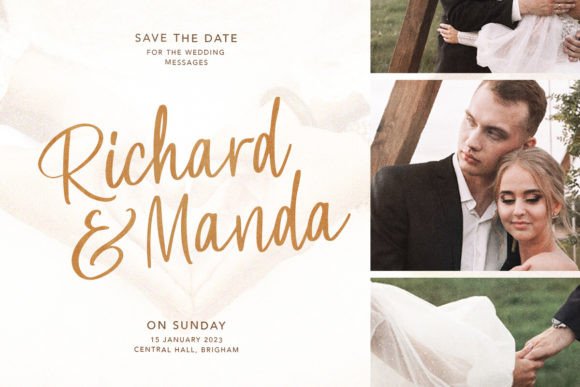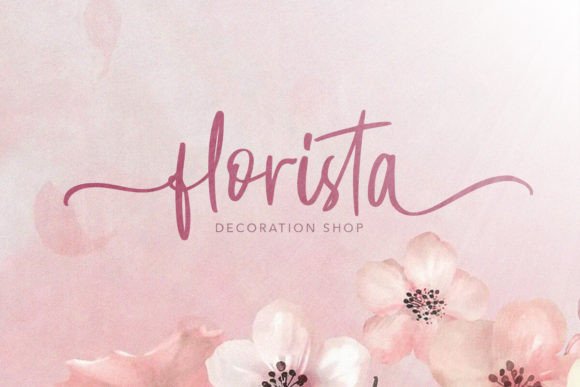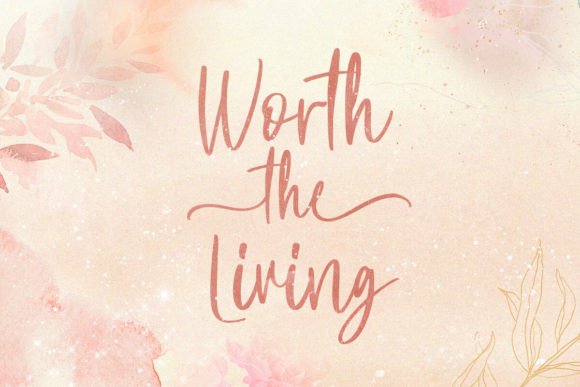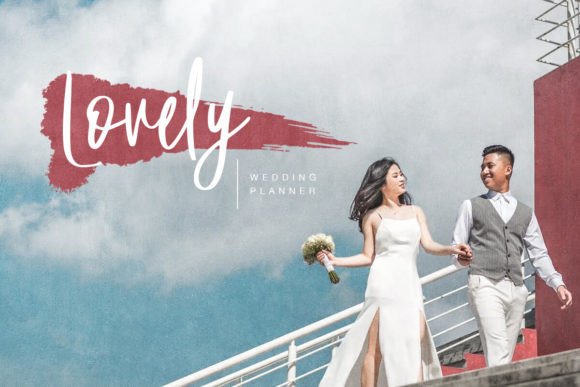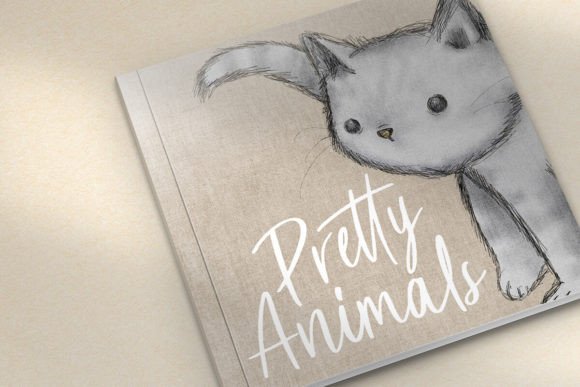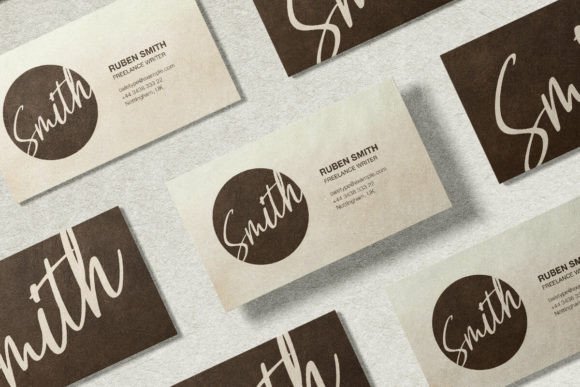
The Perfect Script for Your Next Design Project
Have you ever stared at a blank page, feeling like your design just needs a touch of elegance to bring it to life? That’s exactly what I experienced when I discovered the Bellestone Font. This beautiful handwritten script is more than just a font – it’s a way to add a personal touch to your designs and make them truly unforgettable.
Bellestone Font is designed with natural handwriting in mind, making it perfect for creating unique and organic designs. With its beautiful ligatures and swashes, this font is sure to elevate your designs and make them stand out from the crowd. Whether you’re creating a wedding invitation, a logo, or a product label, Bellestone Font is the perfect choice. Its versatility and beauty make it a valuable asset for any designer looking to add a touch of sophistication to their work.
Bellestone Font Key Features
- Font Family: Bellestone, Bellestone Italic, Bellestone Bold, Bellestone Bold Italic
- Unique Characteristics: Bellestone features a vintage-inspired design with intricate details and ornate flourishes, making it ideal for formal invitations, wedding stationery, and other elegant designs.
Bellestone Font Review
I’ve had the chance to work with the Bellestone font, and I must say it’s a mixed bag. On the one hand, ✨ the elegant and refined aesthetic is perfect for high-end branding and design projects. The subtle flair and intricate details make it stand out in a crowded market.
Here are some of the things I like about the Bellestone font:
- ✨ Unique and sophisticated design that’s perfect for luxury brands
- ✨ High-quality rendering that looks great in various resolutions and sizes
- ✨ Supports a wide range of languages, making it a versatile choice for global brands
On the other hand, ⚠️ the Bellestone font has some limitations that might make it less appealing to some designers:
- ⚠️ Can be difficult to read in smaller sizes due to the intricate details
- ⚠️ Might not be the best choice for projects that require a bold or attention-grabbing font
Overall, the Bellestone font is a solid choice for high-end design projects that require a touch of elegance and sophistication. However, it may not be the best fit for every project, and its limitations should be carefully considered before making a purchase.
For a more elegant look, use Bellestone font in combination with a subtle background image or a minimalist design.
For a more dramatic effect, use Bellestone font in combination with bold colors and intricate designs.
For a more professional look, use Bellestone font in combination with a clean and simple design.
Some popular use cases for the Bellestone font include:
2. Luxury brand logos and marketing materials.
3. High-end fashion and beauty branding.
Remember to use the Bellestone font in moderation and balance it with other design elements to avoid overwhelming the viewer.
Alternatives to Bellestone Font
Bellestone Font is a beautiful and elegant script font, but it may not be the best fit for every design project. Here are a few alternatives that designers can consider:
Ostrich Sans is a modern sans-serif font that is highly legible and versatile. It’s great for use in titles, headings, and body text. Unlike Bellestone Font, which is more ornate and decorative, Ostrich Sans has a clean and minimalist aesthetic. It’s perfect for designs that require a sense of sophistication and elegance without being too over-the-top.
Carolyna Pro is a elegant script font that is reminiscent of Bellestone Font. However, it has a more refined and sophisticated look, making it suitable for high-end designs such as luxury branding, wedding invitations, and fine art. Carolyna Pro is ideal for designers who want to create a sense of luxury and sophistication without sacrificing readability.
Aleo
Aleo is a modern script font that is highly customizable and versatile. It’s great for use in titles, headings, and body text, and can be easily paired with other fonts to create a unique look. Unlike Bellestone Font, which has a more traditional look, Aleo has a more modern and edgy aesthetic. It’s perfect for designers who want to create a bold and eye-catching design.